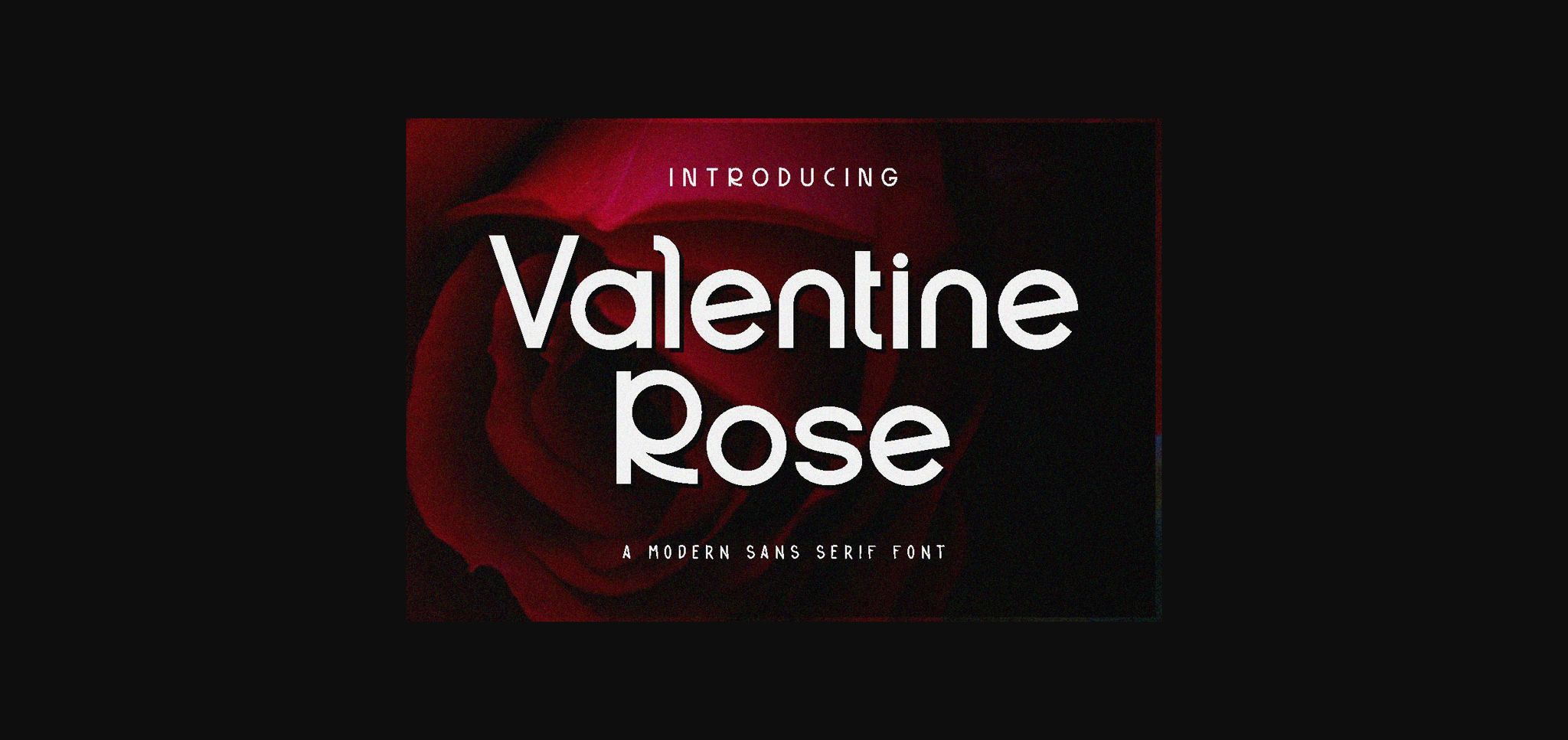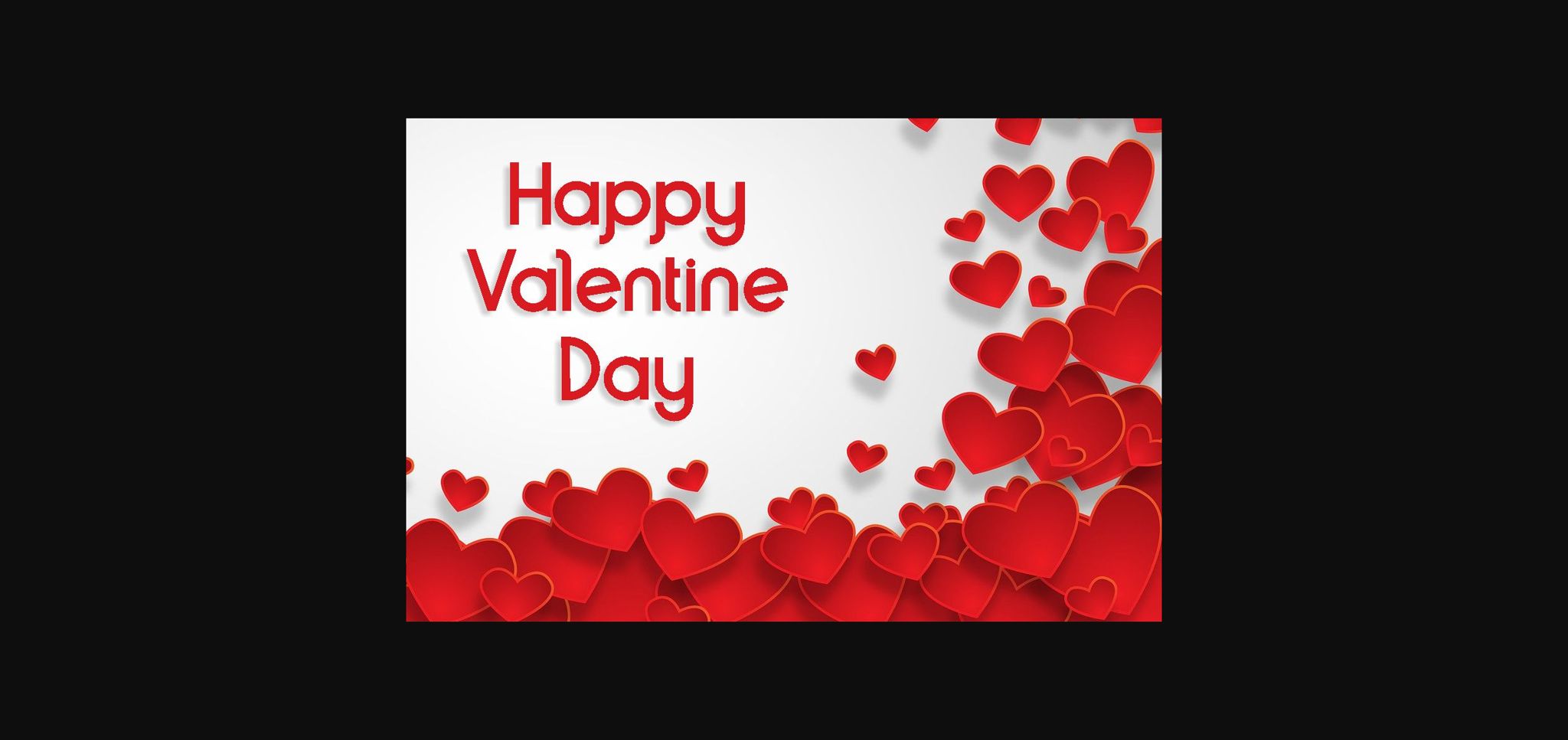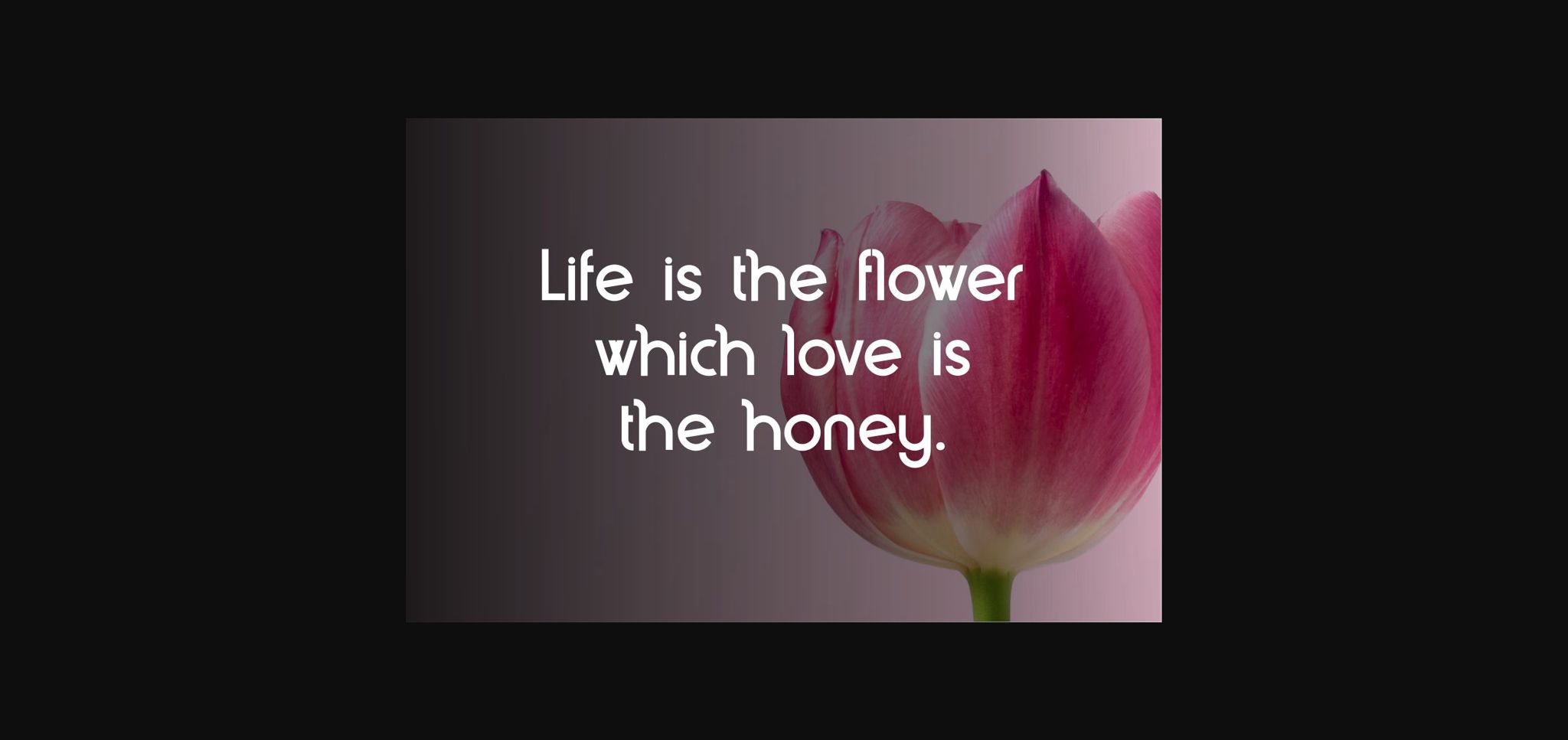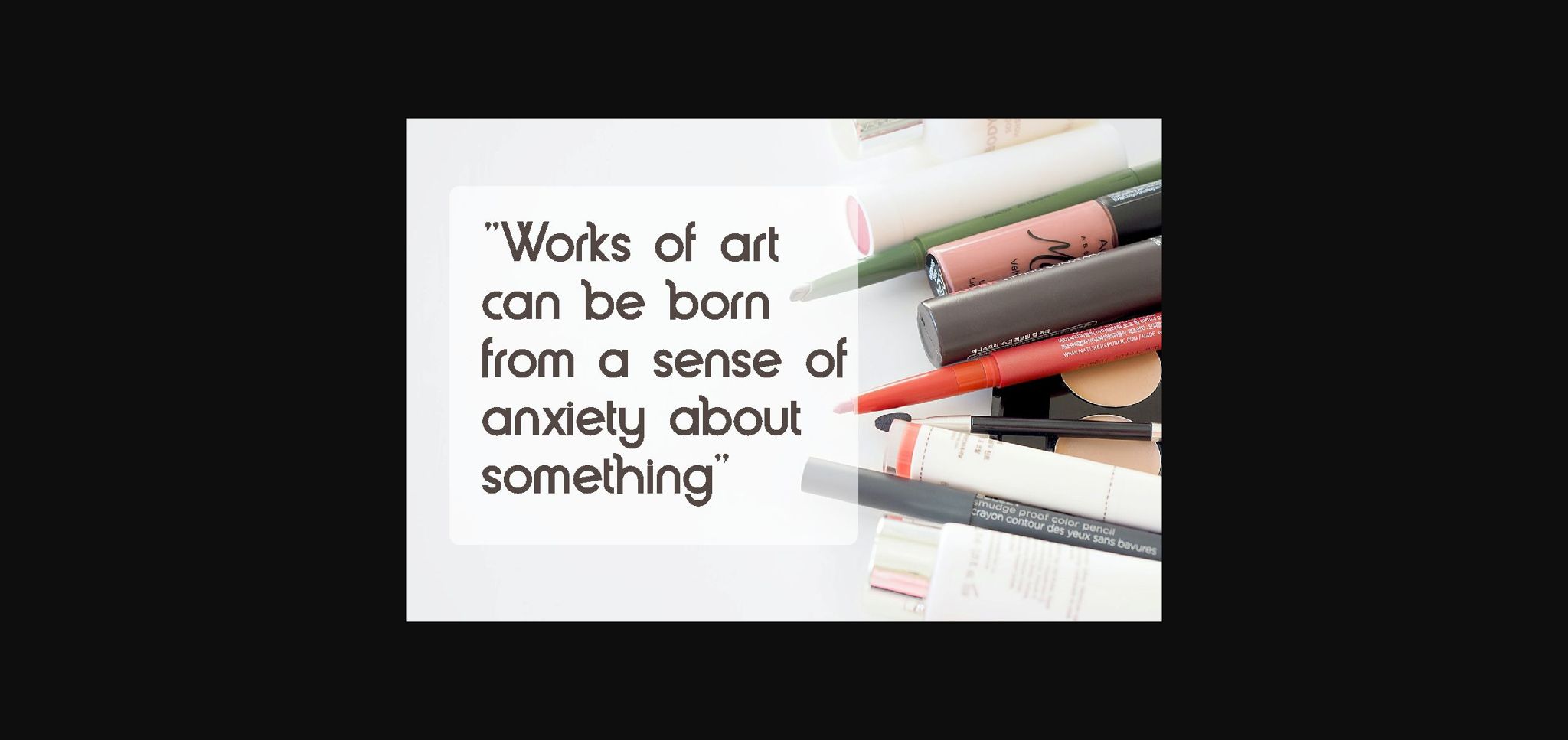
Valentine Rose Font
About Valentine Rose Font
Valentine Rose is a minimalist and classy sans serif font. It can be used for various casual and formal designs, such as websites, advertisement, headlines and so much more.